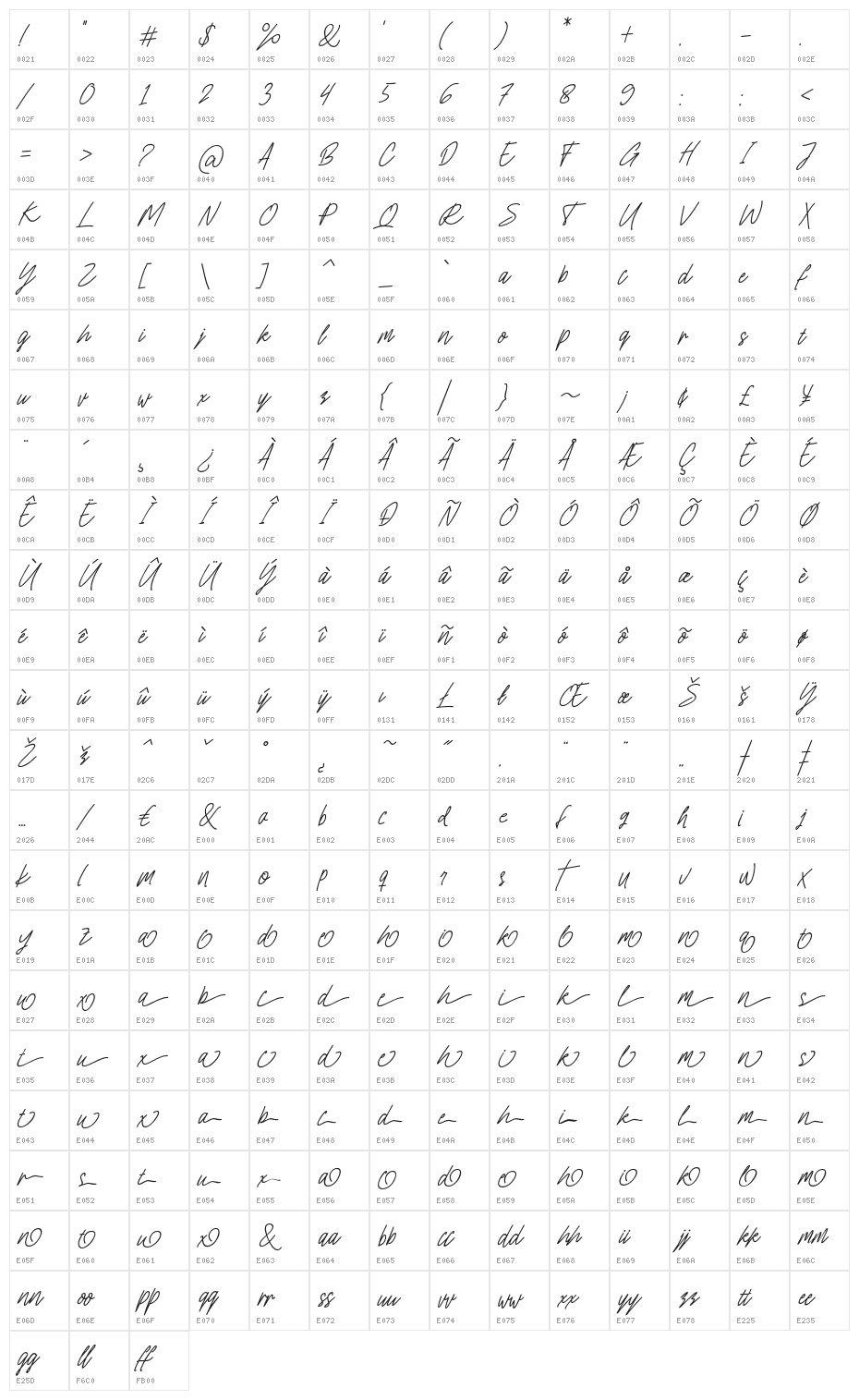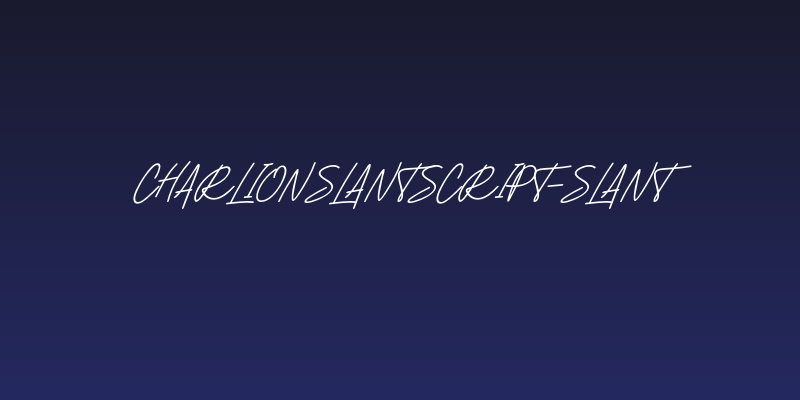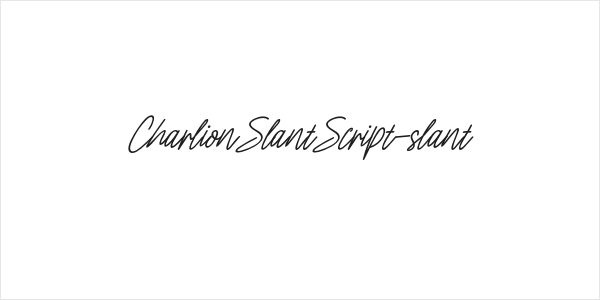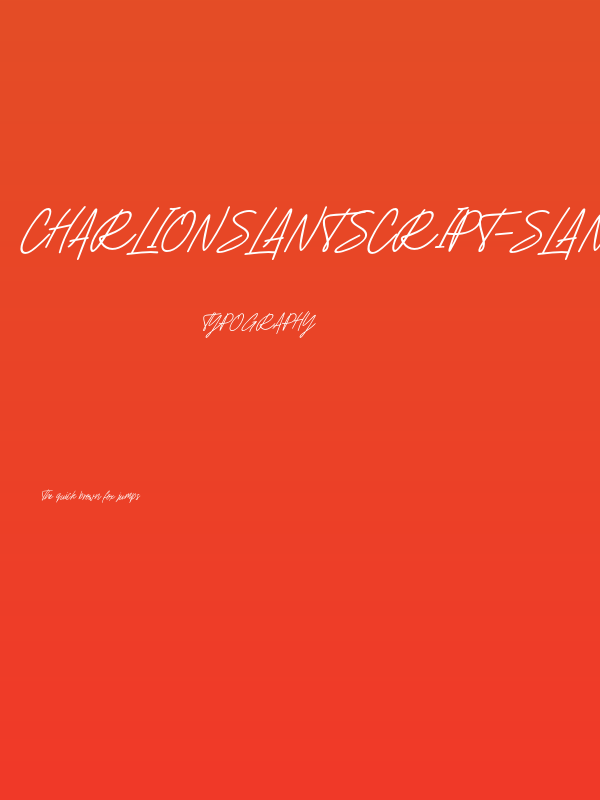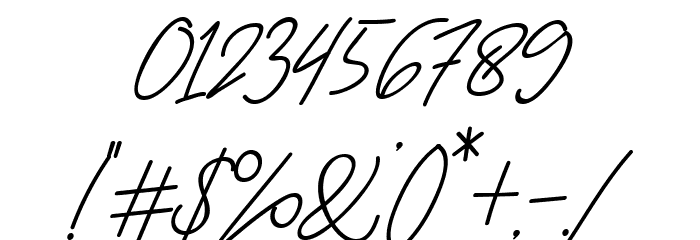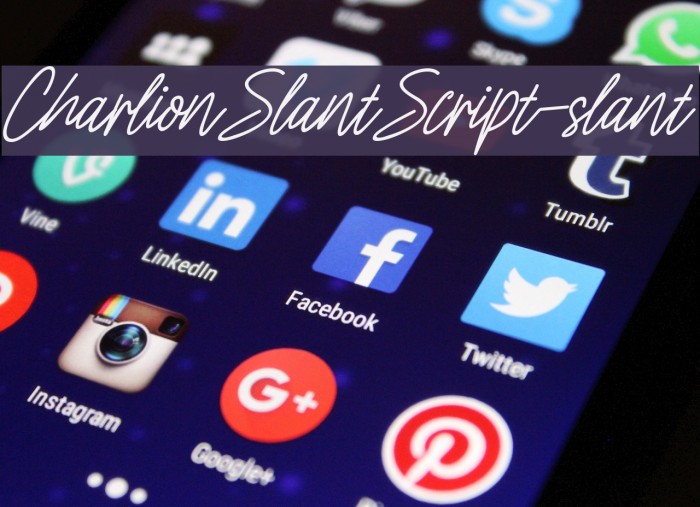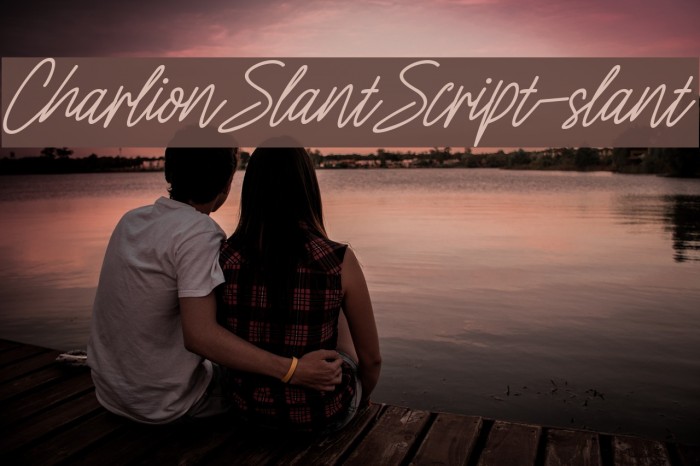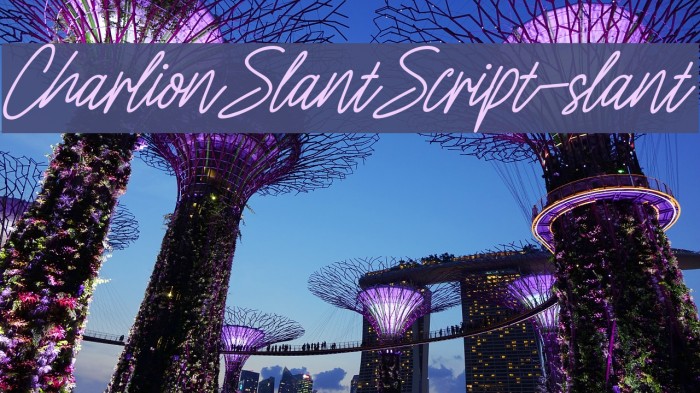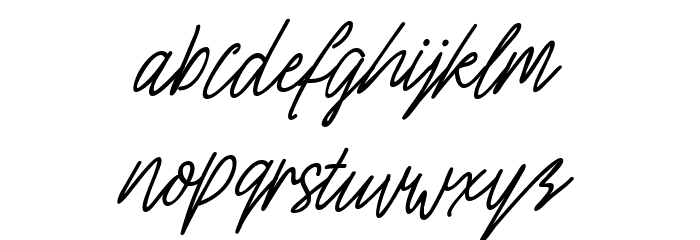
CharlionSlantScript-slant Font
CharlionSlantScript-slant Description
This font features a dynamic and flowing script style, characterized by its elegant, slanted letters that mimic the fluidity of natural handwriting. The uppercase and lowercase letters are designed with a consistent slant, giving the text a sense of motion and grace. The strokes are smooth and connected, with a moderate thickness that maintains readability while adding a touch of sophistication. The numerals and special characters are crafted to match the script's overall aesthetic, ensuring a cohesive look across all text elements. This font is ideal for projects that require a personal and artistic touch.